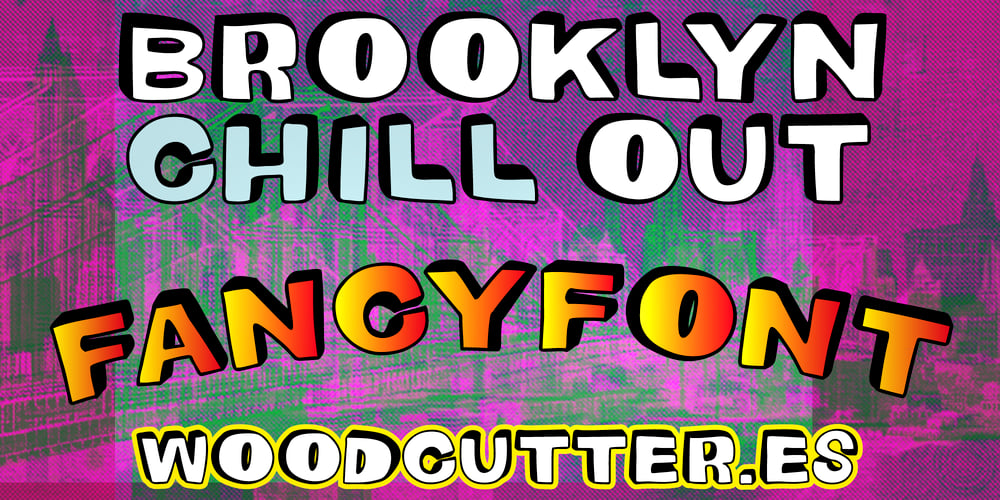
The Brooklyn Chill Out Font Family was designed by Jordi Manero and published by Woodcutter. The Brooklyn Chill Out contains 1 styles and family package options. “The Brooklyn Chill Out” is an uppercase typeface with a hollow design and chaotic shadows that give it a dynamic and carefree look. Its irregular, handmade strokes add an artisanal and authentic aesthetic, making it ideal for projects with a playful and creative touch. The letters, though seemingly disorganized, maintain a visual balance that ensures readability, while accents make it versatile for different languages. This font is perfect for informal designs, eye-catching posters, or graphic materials aiming to convey fun, energy, and spontaneity, all while keeping a unique and modern style.